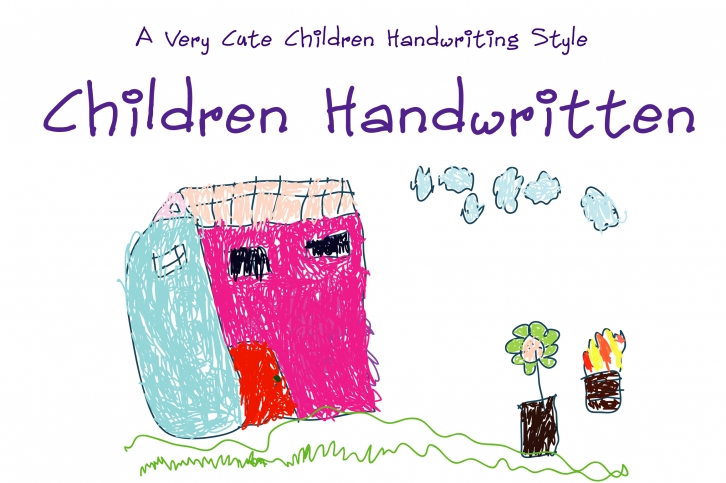
Children Handwritten is a delightful and youthful handwritten font, perfect for adding a childlike vibe to your designs. Legible and neat, this font is an ideal body font and can give a ton of character to both digital and print projects.